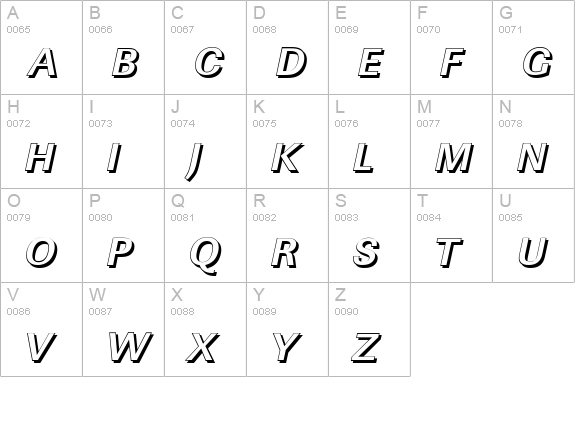
LinearSh-BoldItalic font is a versatile and stylish typeface that exudes confidence and sophistication. Its bold and italic design adds a touch of elegance to any project, making it a perfect choice for headlines, logos, and branding materials. With its clean lines and modern aesthetic, LinearSh-BoldItalic font is sure to make a statement and capture attention. Best of all, LinearSh-BoldItalic font is available for free download at FontsMarket.com. This means you can easily access and use this high-quality font in your designs without any cost. Whether you're a professional designer or a hobbyist looking to elevate your projects, LinearSh-BoldItalic font is a valuable addition to your font collection. Download it today and add a touch of flair to your creative work!